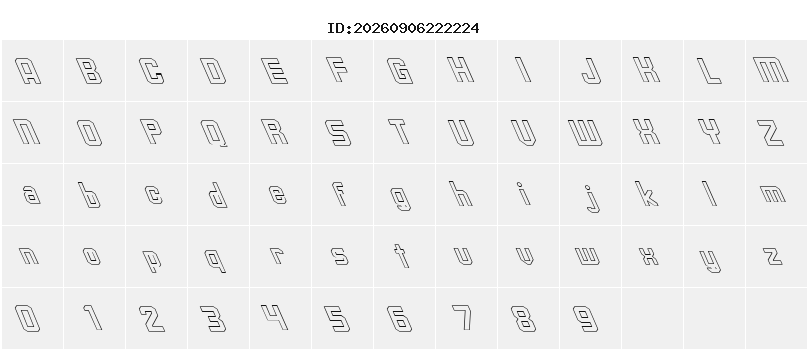
• Font Name: Upsilon Hollow Extreme Lefties
• Full Font Name: Upsilon Hollow Extreme Lefties
About Upsilon Hollow Extreme Lefties.ttf
Upsilon Hollow Extreme Lefties.ttf is a modern, elegant sans-serif font designed for ultimate readability and visual harmony. Perfect for branding, headlines, web design, and print materials.